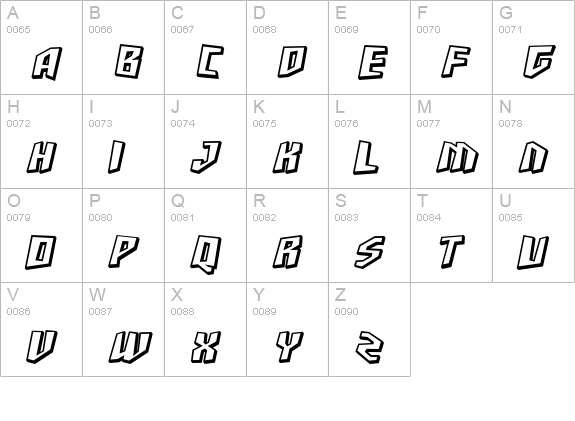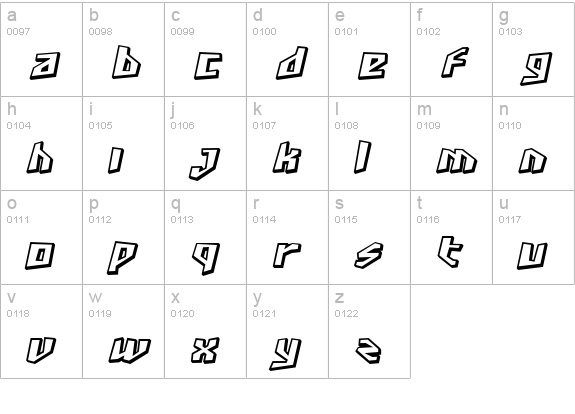
SF Junk Culture Shaded Oblique Font Details
SF Junk Culture Shaded Oblique is a distinctive, italic variant in the SF typeface family \xE2\x80\x94 well suited to design and typography projects.
SF Junk Culture Shaded Oblique font is a captivating and innovative typeface that effortlessly blends elements of techno and grunge to create a truly unique visual experience. With its edgy and distorted letterforms, this font exudes a sense of urban rebellion and underground energy. Designed with meticulous attention to detail, SF Junk Culture Shaded Oblique font brings a touch of excitement and modernity to any design project. Its slanted and shaded appearance adds depth and dimension, making it perfect for headers, logos, posters, and other eye-catching visuals. This font is freely available to download at FontsMarket.com, one of the leading platforms for font enthusiasts. Whether you're a professional designer or a creative individual looking to add a touch of unconventional style to your personal projects, SF Junk Culture Shaded Oblique font will undoubtedly become your go-to typeface. With its sleek and contemporary design, this font is guaranteed to make a lasting impression. Its versatility allows it to be equally at home in both digital and print mediums, making it a must-have tool for designers across various industries. SF Junk Culture Shaded Oblique font's bold and dynamic presence is sure to elevate any project, giving it an instant visual impact and setting it apart from the crowd. Download SF Junk Culture Shaded Oblique font today from FontsMarket.com and unleash your creativity with this extraordinary typeface. Embrace the freedom of expression that this font embodies, and let it inspire you to push the boundaries of design. With SF Junk Culture Shaded Oblique font, your creations will be infused with a rebellious spirit that is sure to captivate and engage your audience.